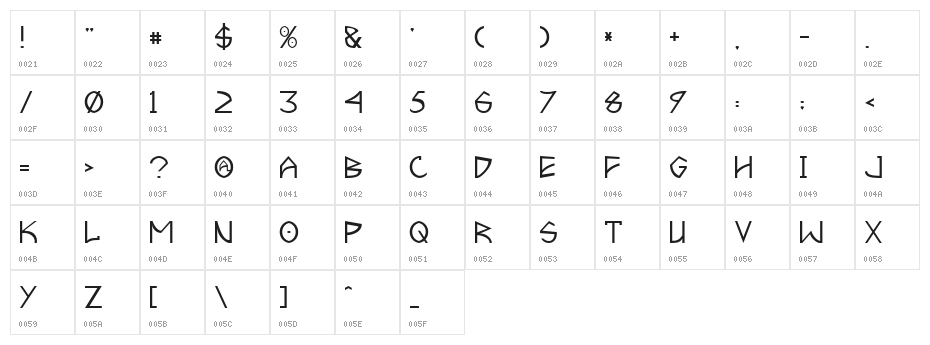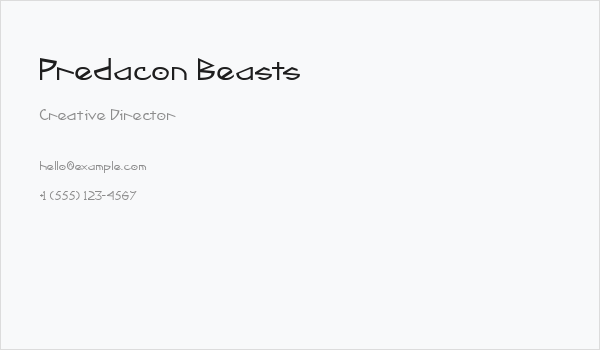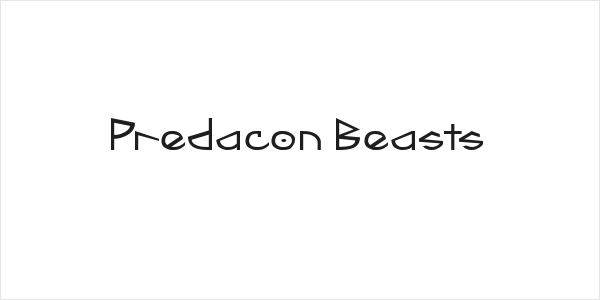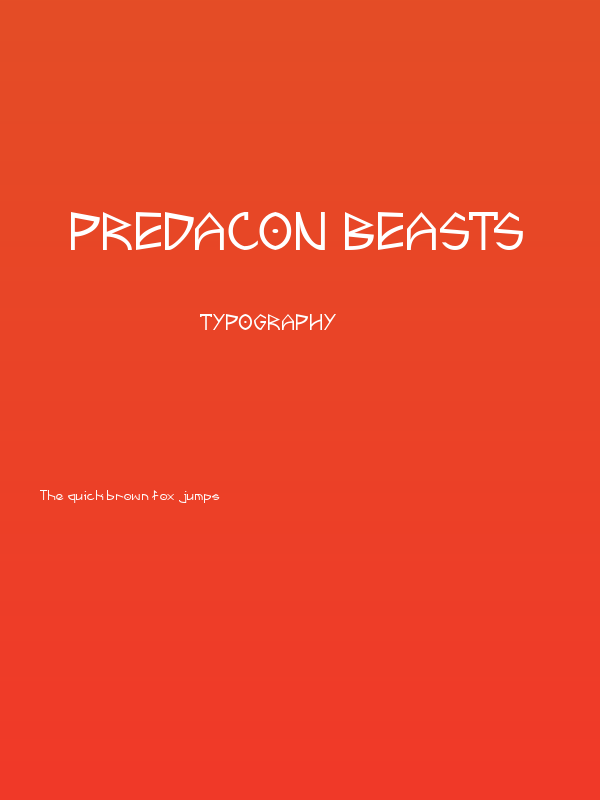
Predacon Beasts Font
Predacon Beasts Description
This font features a unique and edgy design, characterized by sharp angles and geometric shapes. The uppercase letters have a futuristic appearance, with distinct cuts and lines that give them a dynamic and aggressive look. The lowercase letters maintain this angular style, creating a cohesive visual identity. The numerals are bold and maintain the same sharp aesthetic, making them stand out prominently. Special characters are designed with the same attention to detail, ensuring consistency across the font. This font is ideal for projects that require a modern and bold statement.
| Proposed Projects | Perfect for sci-fi themed projects, video game titles, posters, and branding that requires a modern and bold look. |